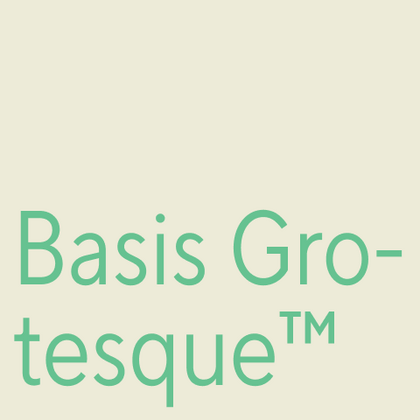
Fonts similar to Basis Grotesque™
For projects requiring neutral and functional sans serifs, the TypeType collection offers professional solutions. If you need a modern and new alternative, take a look at our studio’s selection. Basis Grotesque™ is known for its versatility—our typefaces retain its best qualities while adding individuality to your projects. Alternative fonts from TypeType are professional solutions for complex typographic tasks where neutrality and functionality are key.
If you are tired of overused typefaces and are looking for fonts similar to Basis Grotesque™, check out our best free-to-try Basis Grotesque™ alternatives, which have similar characteristics as well as new, unique design features. Some of the fonts belong to the same type category, and others are suitable for the same tasks or have similar traits but stand out for their distinct details or proportions.
Find a great Basis Grotesque™ replacement font and try to recreate a similar mood and capture the feeling you aim for by using it in your designs. Each font presented on this page is a twin of the Basis Grotesque™ font, practically identical to it.
TT Travels Text is a geometric grotesque with wide proportions and specific shapes of circles and fillets, which includes two stylistic sets with completely different natures.
TT Wellingtons is an attempt to combine the style of English humanist sans serifs of the early 20th century with the requirements for modern geometric grotesques.
TT Hazelnuts is a display sans serif font family containing a set of elegant and delicate decorative elements.
TT Corals is a modern humanistic sans serif which has many typical traits of the beginning of the 20th century. For an increased functionality of the font family, we`ve created 6 styles of various weights.